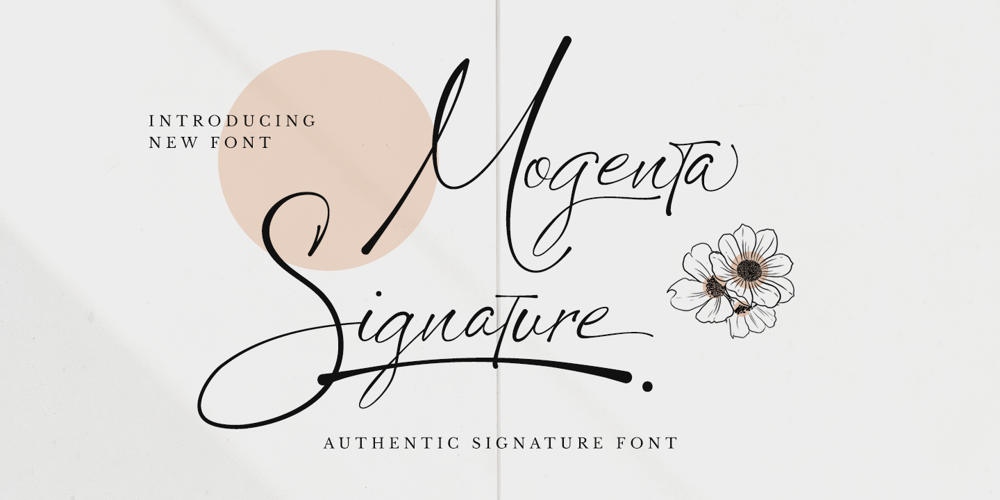
Mogenta Signature
Mogenta Signature font
Mogenta Signature Font Family was designed by Hayinah and published by Rockboys Studio. Mogenta Signature contains 1 styles and family package options. Mogenta Signature is a modern signature font which is combining classic calligraphy with a modern style. Its dancing baseline will give your design an elegant and modern touch.